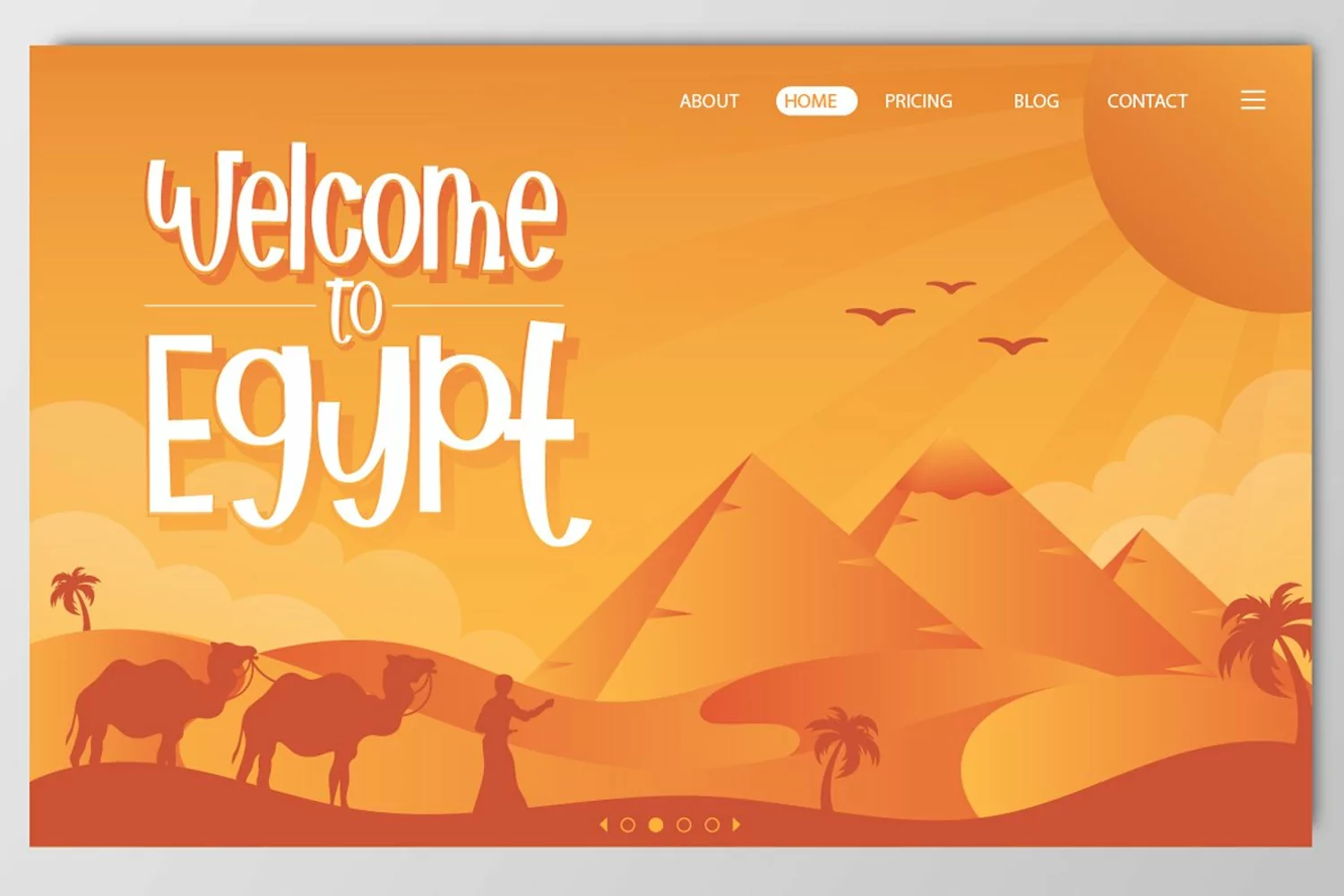
African Paradise - Display Trio Fonts
Introducing "African Paradise"
African Paradise a Handwritten Display Font With 3 Style (Regular,Outline and Shadow)
You Can Mix And Match for Your Awesome Project
Uppercase & Lowercase
Number & Punctuation
More than 251 of glyphs
Multilingual Language
PUA Encode
Ligatures
Alternate